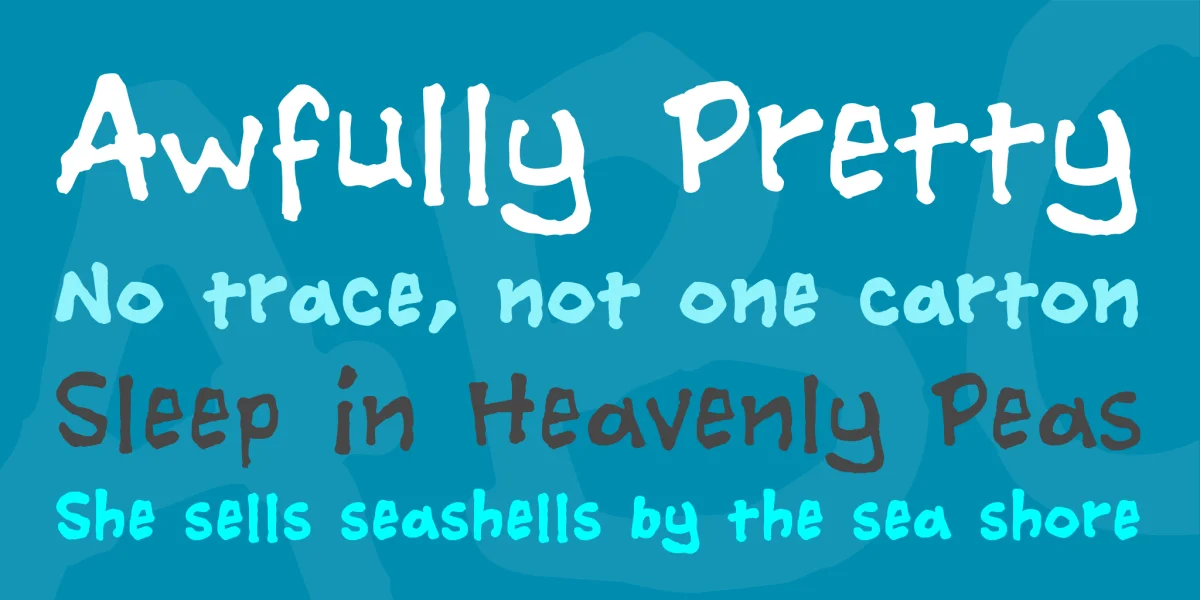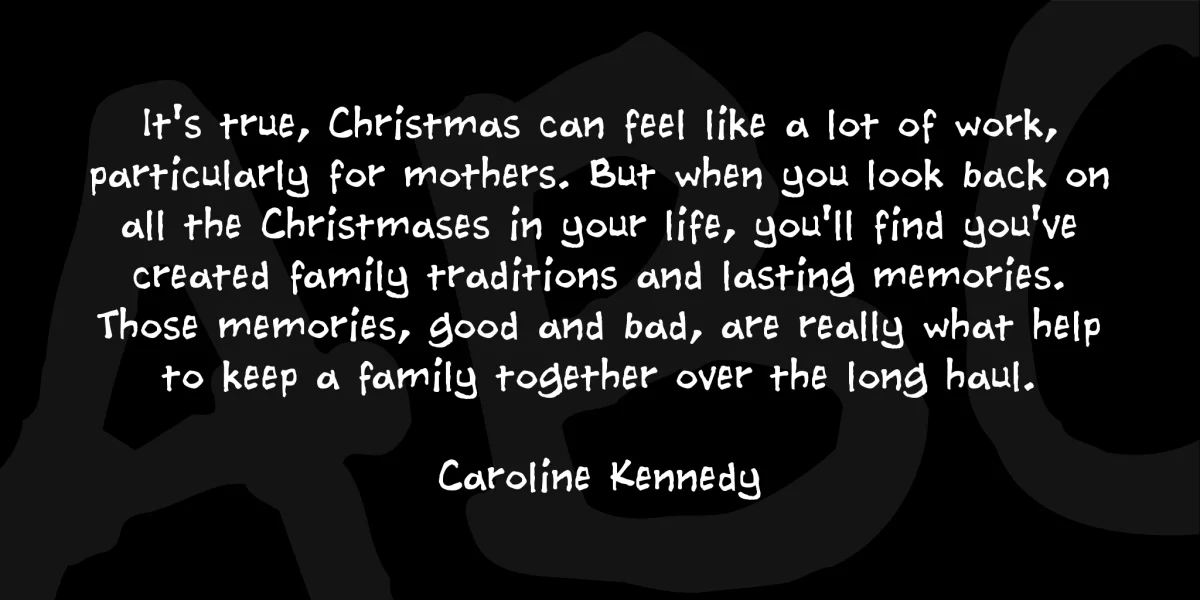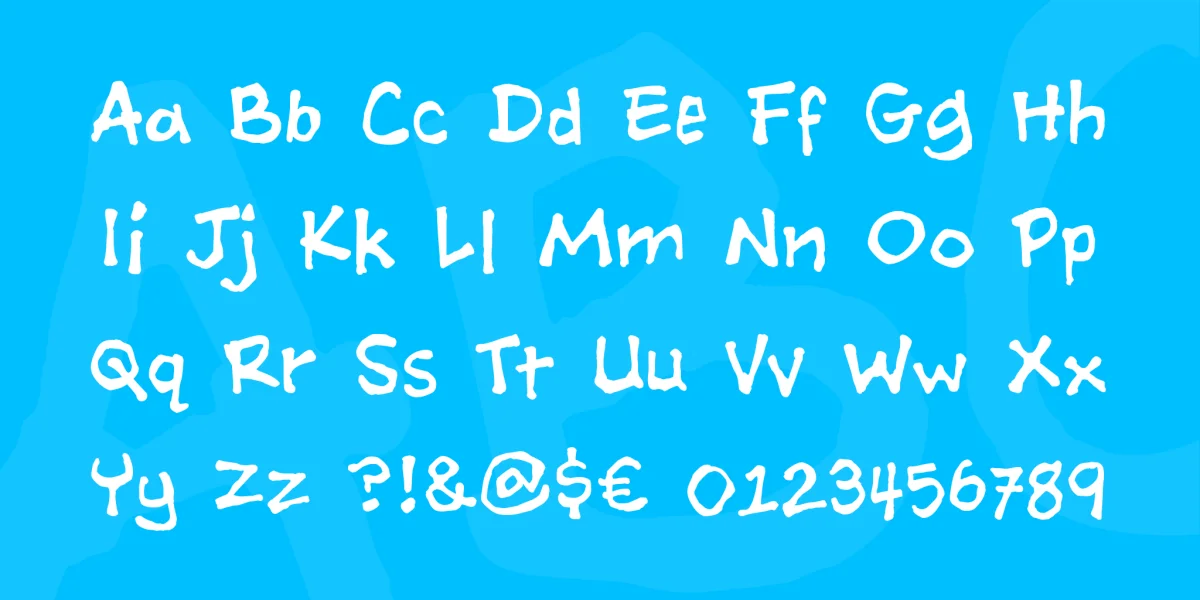
Back before there was a Blambot, I can't tell you how many nights I spent photocopying my own home-made comics at the local Kinkos. Enough nights to actually look back on it fondly, I suppose. And this font is a tribute to those toner-stained days of innocence. It's a sloppy, but endearing hand lettered style in regular and bold.